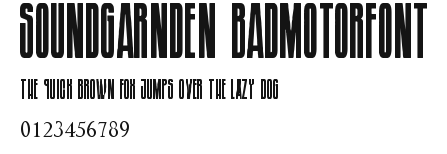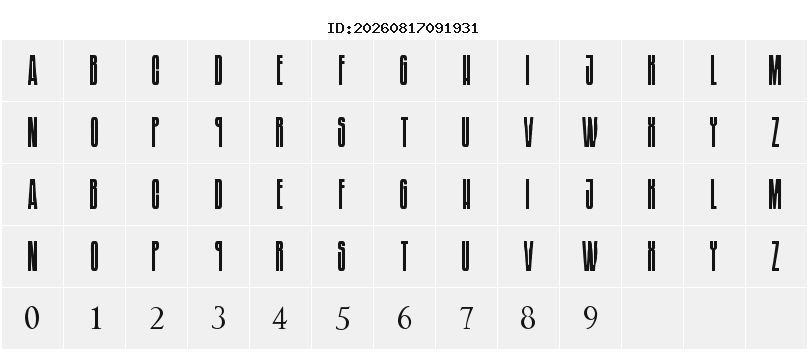
Soundgarnden Badmotorfont Preview
About Soundgarnden Badmotorfont.ttf
Soundgarnden Badmotorfont.ttf is a modern, elegant sans-serif font designed for ultimate readability and visual harmony. Perfect for branding, headlines, web design, and print materials.